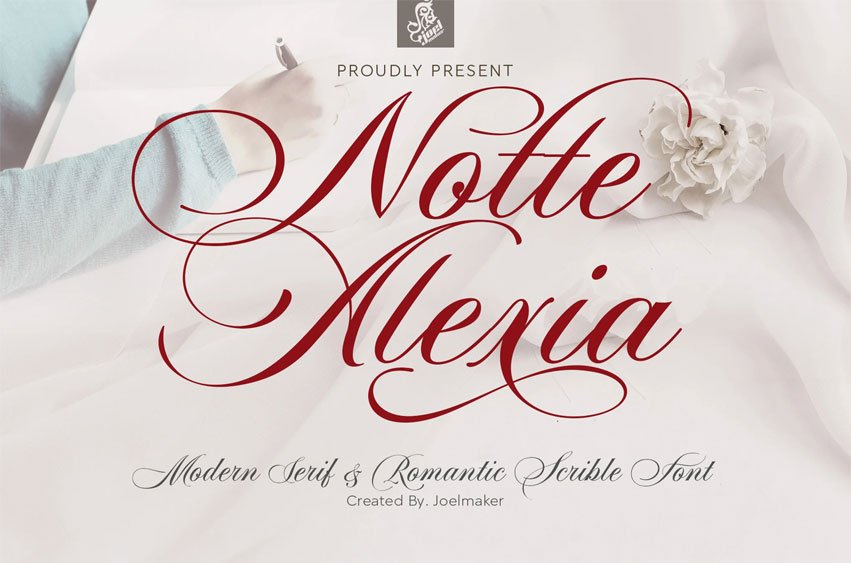
Notte Alexia Font Script is an ancient-style font painted in a modern style, combined with unique ligatures and a beautiful and attractive swirly, making this font more energetic.
Juxtaposed with a very beautiful Script, it looks even more dynamic.